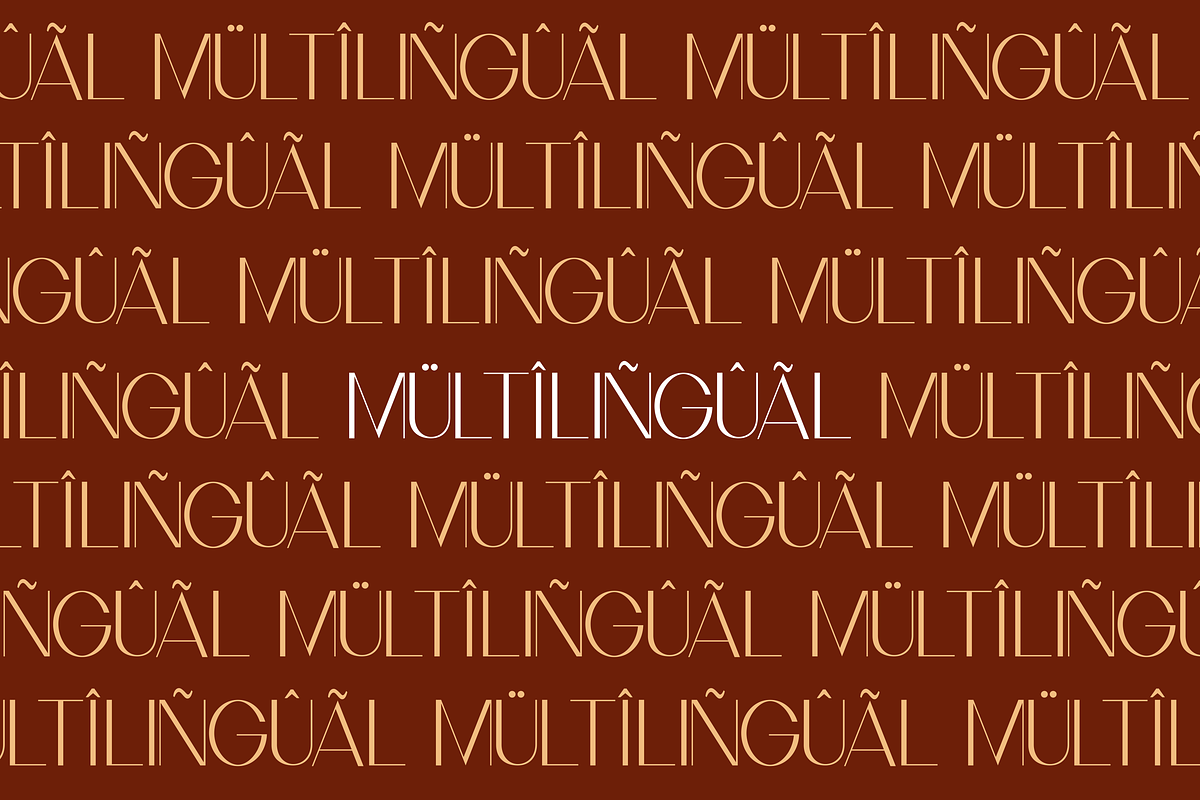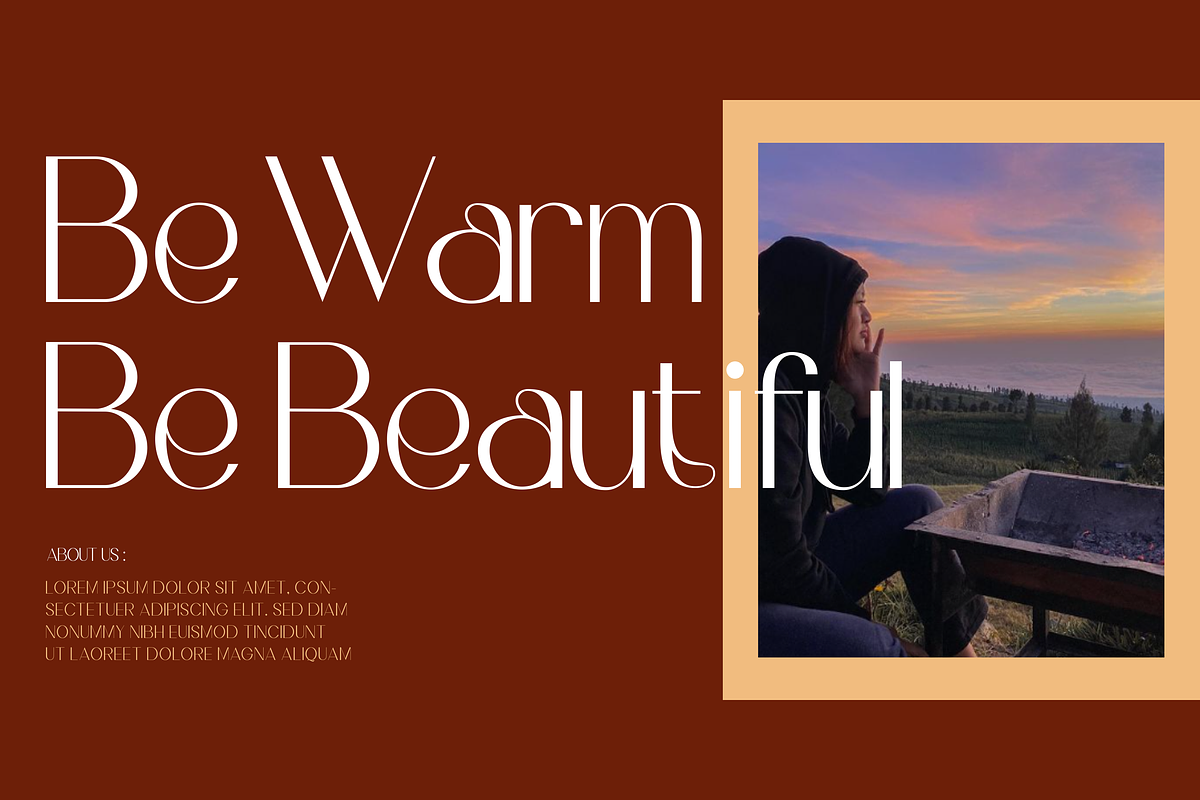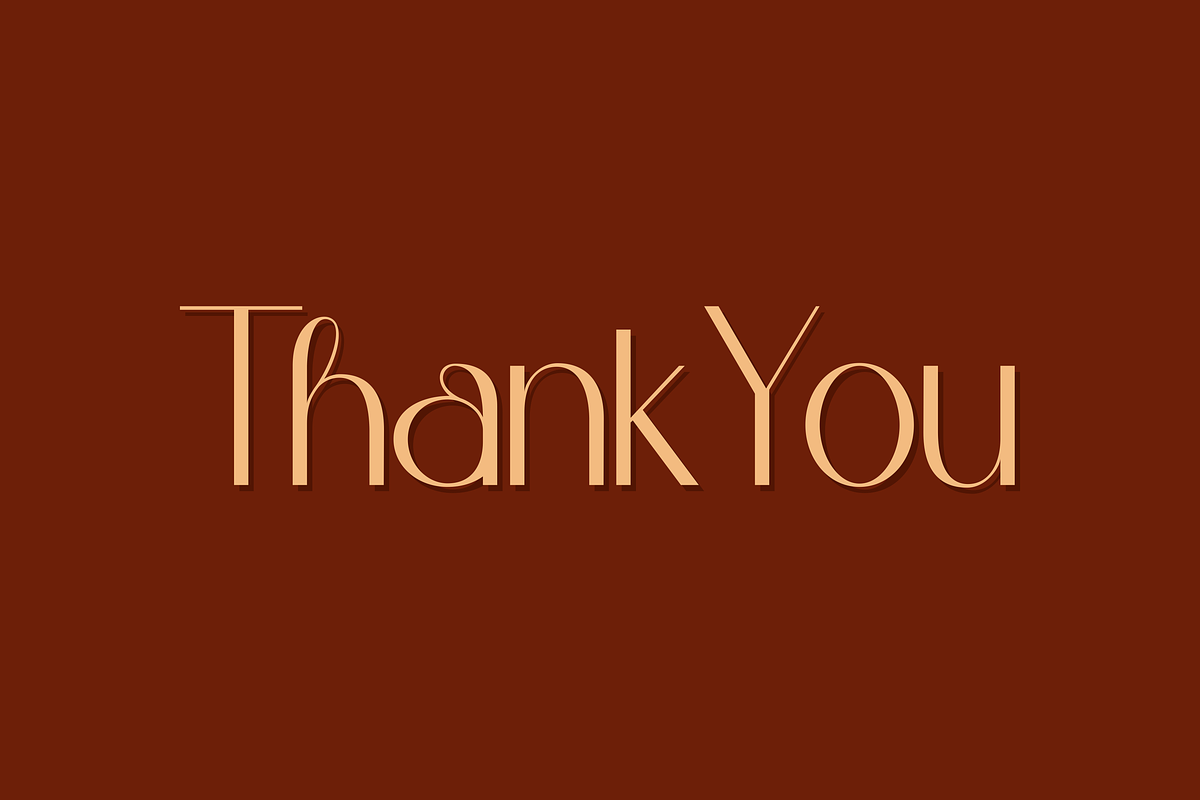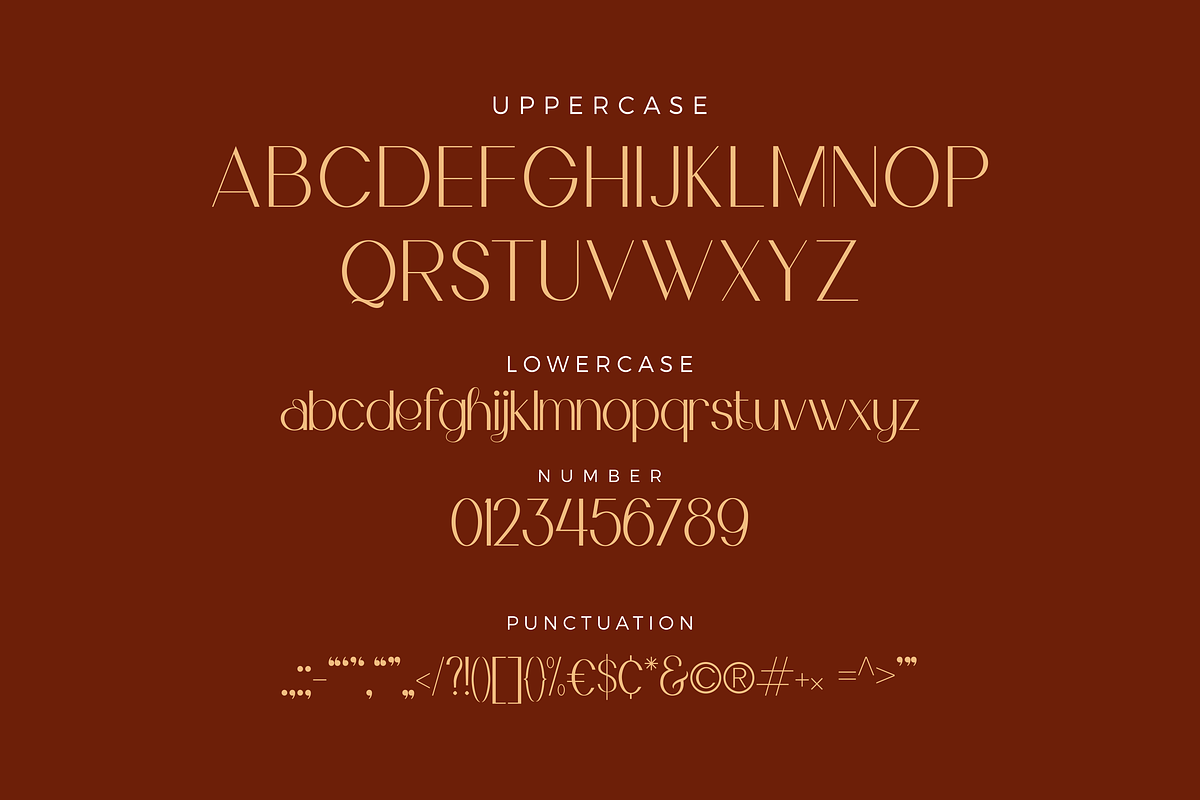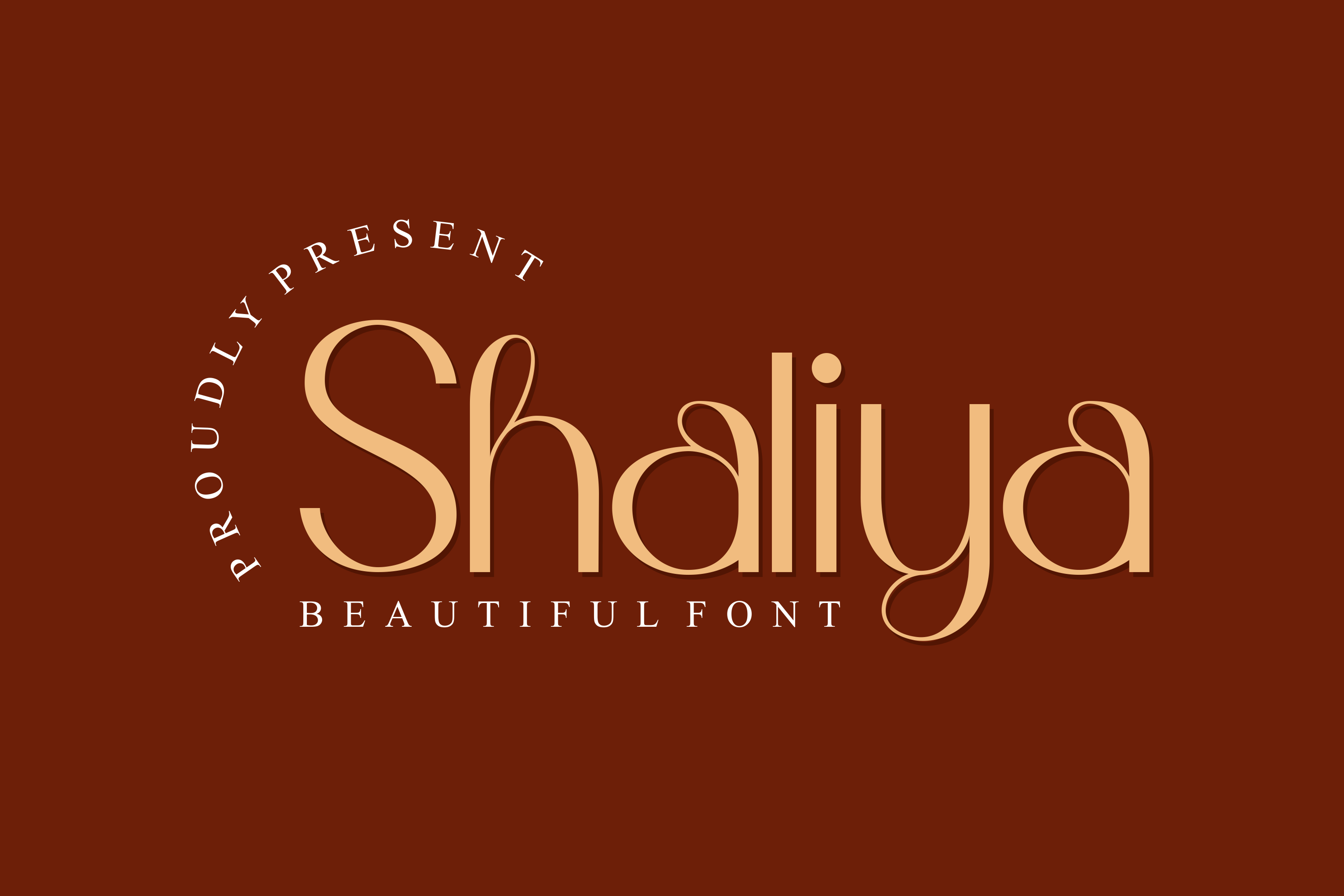
Shaliya Beauty Font
Introducing of our new product the name is Shaliya a Modern Sans Serif Font, Shaliya inspired by the upscale luxury style. This font is perfect for posters, social media posts, branding, personal projects, etc.